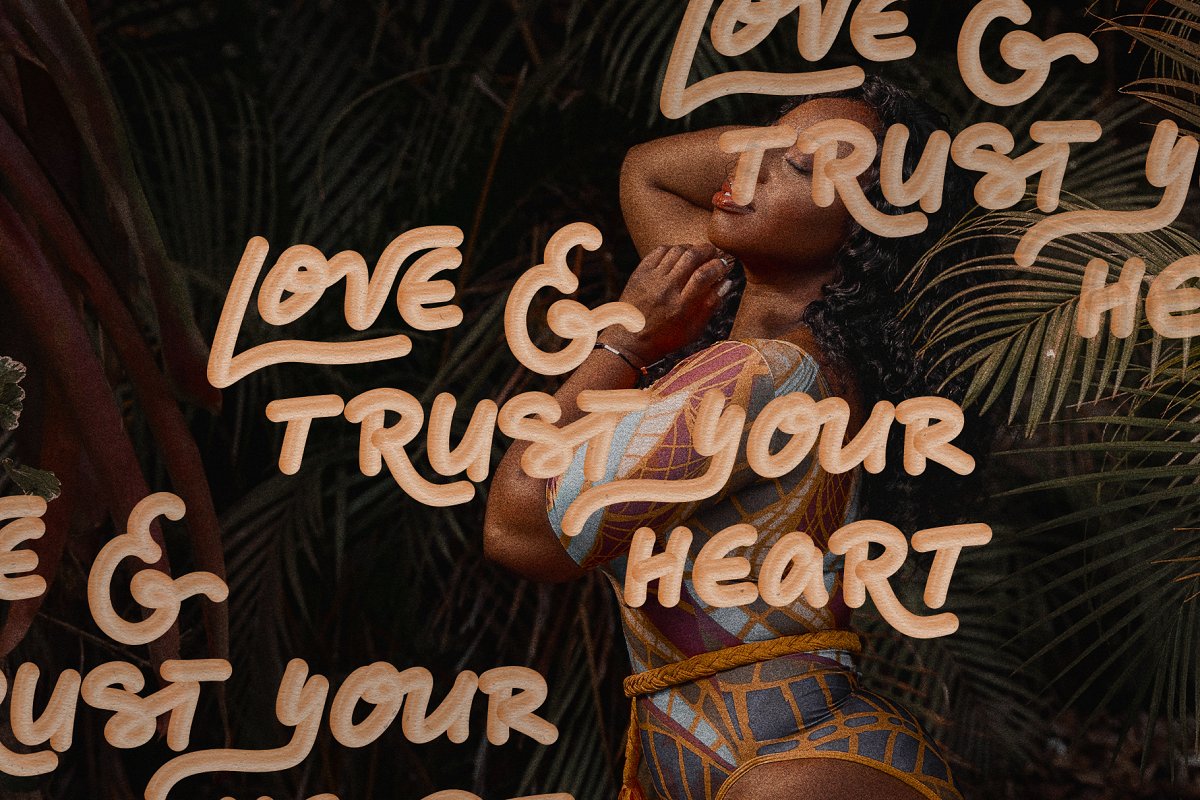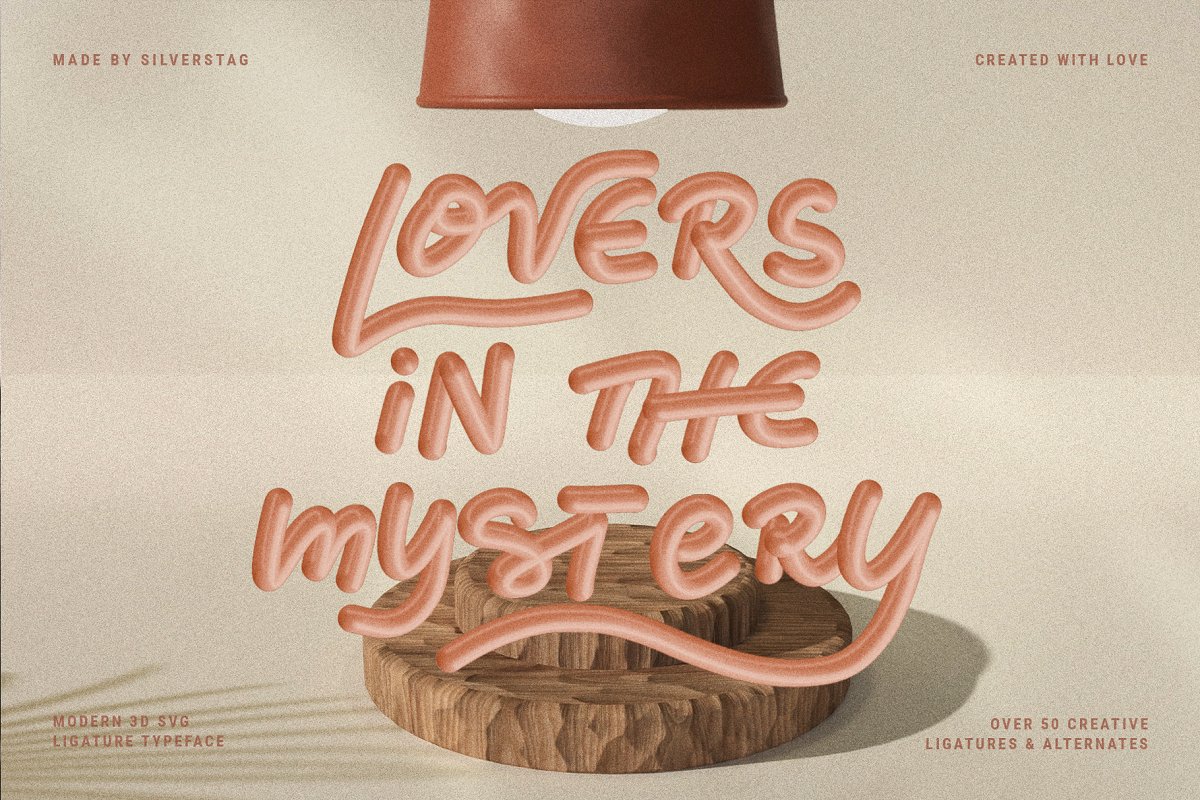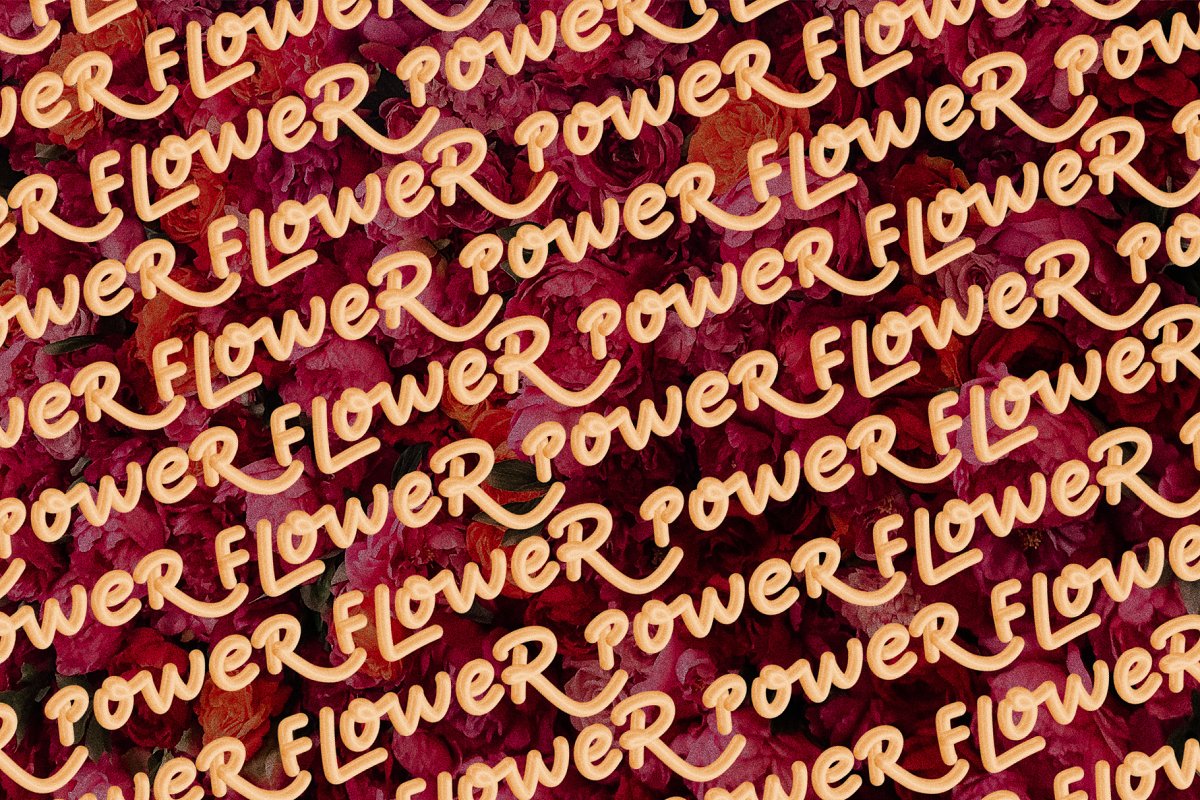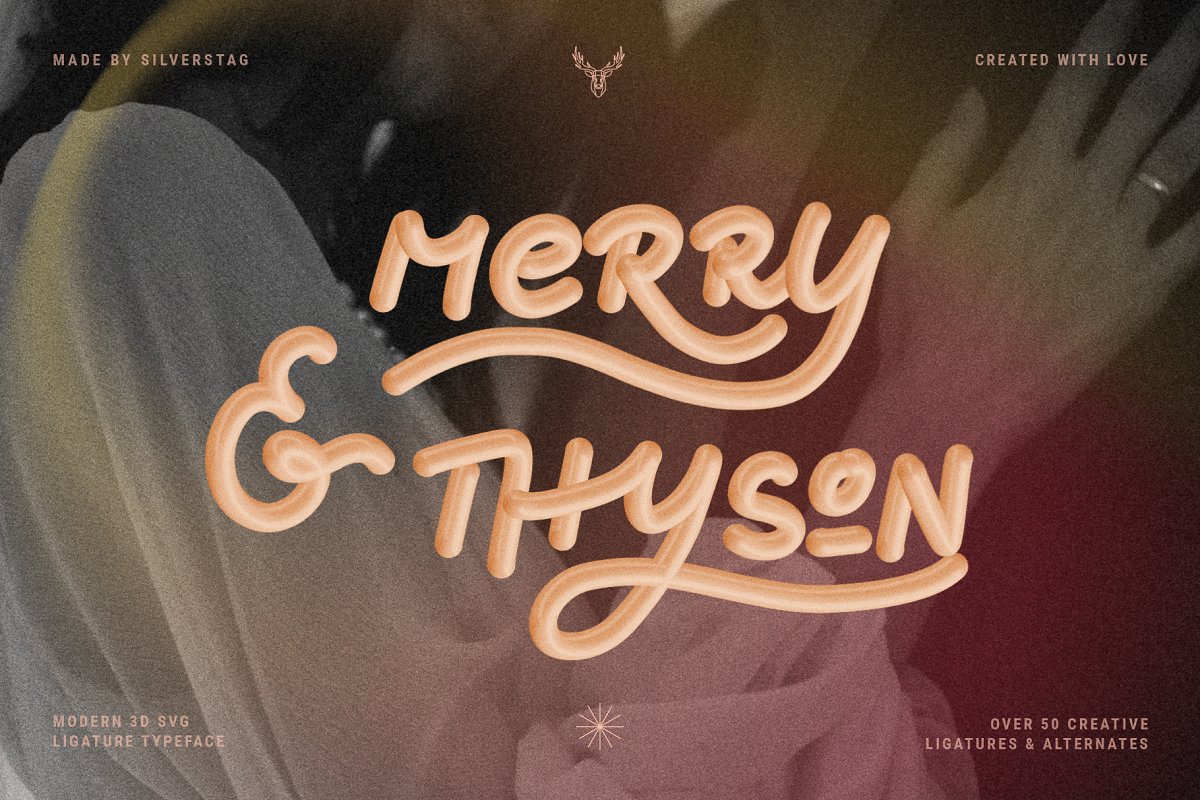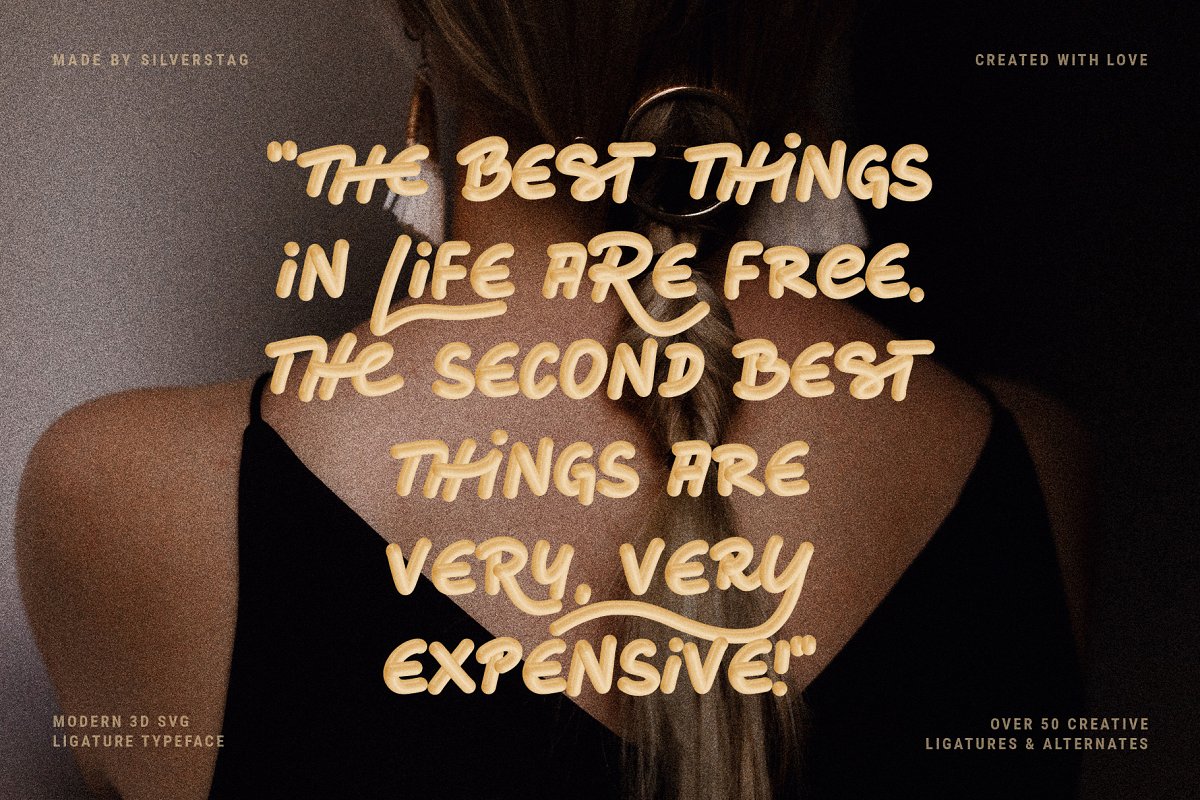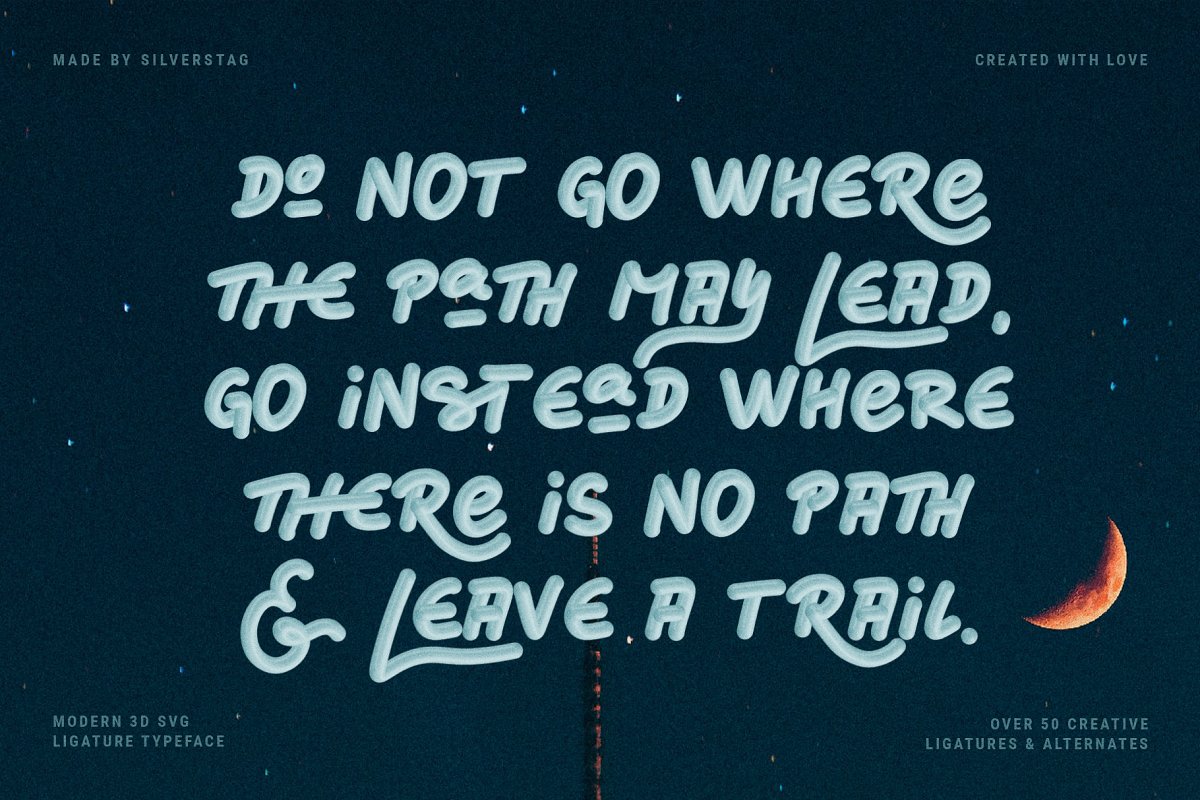
About the Cherry Thyme D SVG Typeface Font
Hey guys, we’re already one month into spring, and spring for me usually means something new, different, doing the things I didn’t do before, experimenting, So, here’s something completely different and unique on the marketplace, A true handwritten 3D SVG font with over 50 unique ligatures and alternate letters!To use the 3D version you will need Photoshop CC 2017, Illustrator CC 2018, or Procreate 4